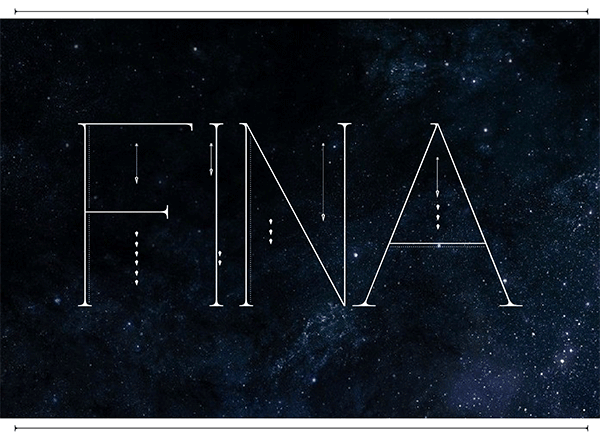
Fina free font is thin modern and different, in uppercase comes with an decorative effect that could be interesting in some headlines depending on the moods, it’s a cool serif font elegant with a curious look. It’s available for personal and commercial use.